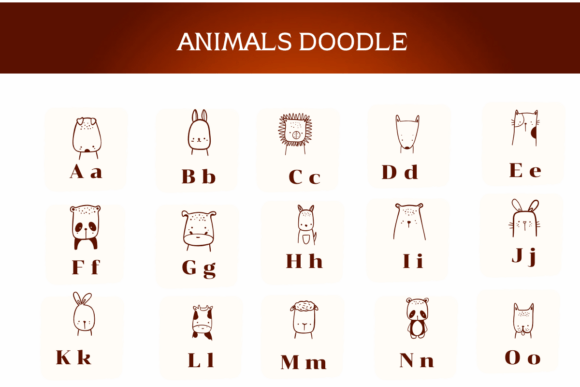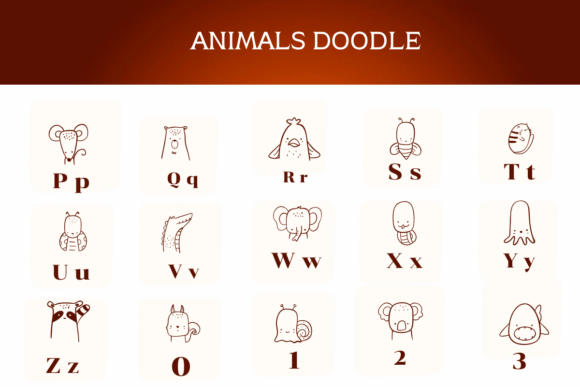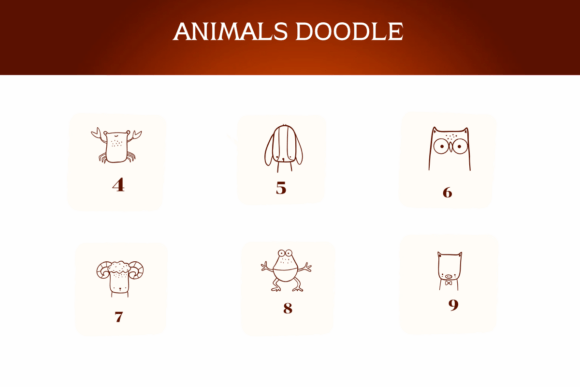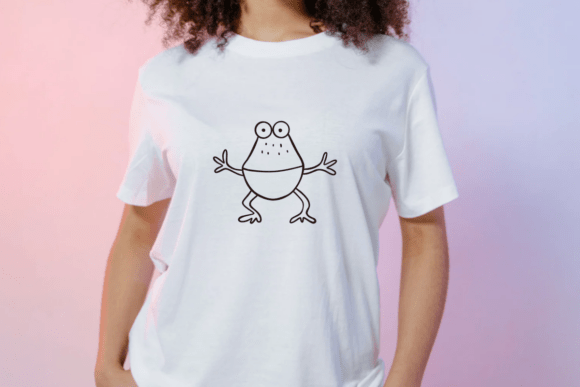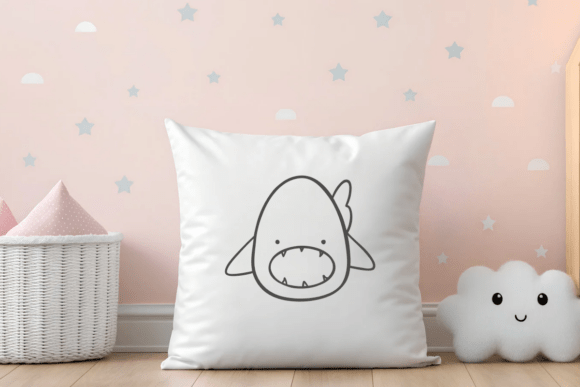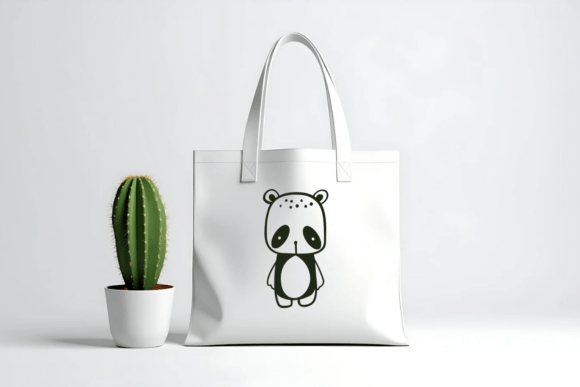
Unleashing Whimsy: The Joy of Animals Doodle Font
As I sat at my desk, surrounded by scraps of paper and a sea of half-finished projects, I stumbled upon a font that would change the way I create. I was brainstorming ideas for a children’s book, and I needed a way to add some visual magic to my story. That’s when I discovered the charming Animals Doodle Font – a delightful collection of hand-drawn animal characters that brought my illustrations to life.
This whimsical dingbats font is more than just a pretty face; it’s a powerful tool for designers and creatives. With its extensive library of animal illustrations, each mapped to a specific letter of the alphabet, the Animals Doodle Font offers endless possibilities for crafting unique and engaging content. From children’s educational materials to playful nursery decor, this font is an absolute must-have for anyone looking to add a touch of personality to their designs.
Animals Doodle Font Key Features
- Font Type: Hand-drawn doodle font, perfect for children’s books, educational materials, and fun designs.
- Character Count: Includes a wide range of characters, including uppercase and lowercase letters, numbers, and punctuation marks.
- Unique Characteristics: Whimsical, playful, and child-friendly design elements, such as doodles of animals, flowers, and other fun illustrations.
Animals Doodle Font Review
I recently had the chance to work with the Animals Doodle Font, and I have to say, it’s a unique and playful addition to any design project. ✨ The whimsical illustrations and doodles really bring a smile to the user’s face, making it perfect for kids’ content, educational materials, or even social media graphics.
The font is highly customizable, allowing you to adjust the color, size, and style to fit your design needs. ✨ The illustrations are also easily scalable, which is great for using in various formats, from small icons to large posters.
- ⚠️ Limited character set: The font only includes a few dozen illustrations, which may not be enough for extensive content.
- ⚠️ Overuse: The playful illustrations can become overwhelming if used too frequently, so it’s essential to balance them with more straightforward typography.
- ⚠️ Limited style options: While the font is customizable, the available styles and colors are somewhat limited, which may not appeal to designers seeking more versatility.
Overall, the Animals Doodle Font is a fun and creative tool for designers looking to add a touch of personality to their projects. While it may have some limitations, its unique charm and customizability make it a valuable asset in the right situations.
The “Animals Doodle Font” is perfect for creating playful and whimsical designs, such as children’s books, party invitations, and social media graphics.